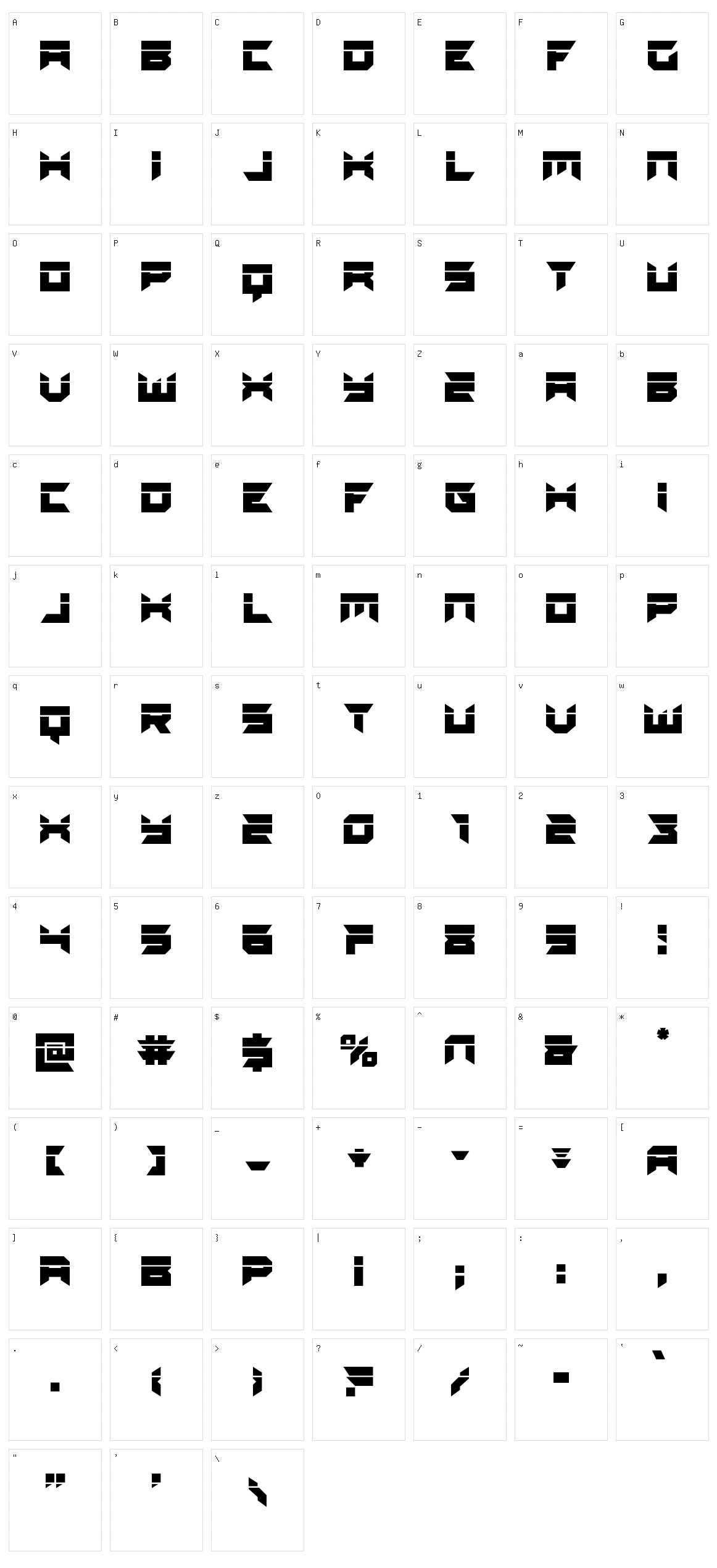
Dagger Dancer Font
This font comes with the following 22 versions: Regular, Italic, Semi-Italic, Super-Italic, Leftalic, Sem-Leftalic, Condensed, Condensed Italic, Expanded, Expanded Italic, 3D, 3D Italic, Gradient, Gradient Italic, Halftone, Halftone Italic, Twotone, Twotone Italic, Laser, Laser Italic, Title and Title Italic.